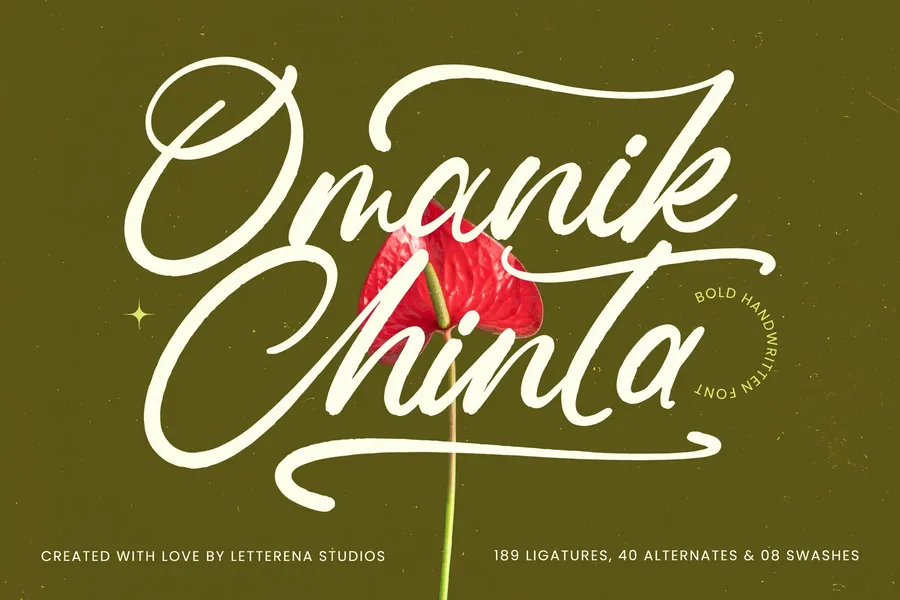
Omanik Chinta
Hi ladies & gentlemen, this is one of our fonts suitable to complement your digital and printed creative products. This font is perfect for posters, social media posts, branding, personal projects, etc.